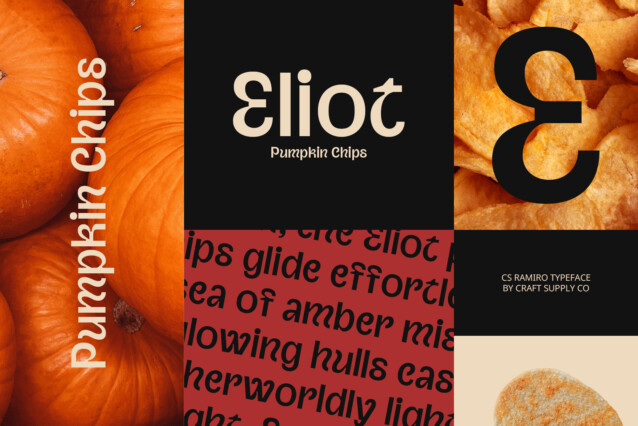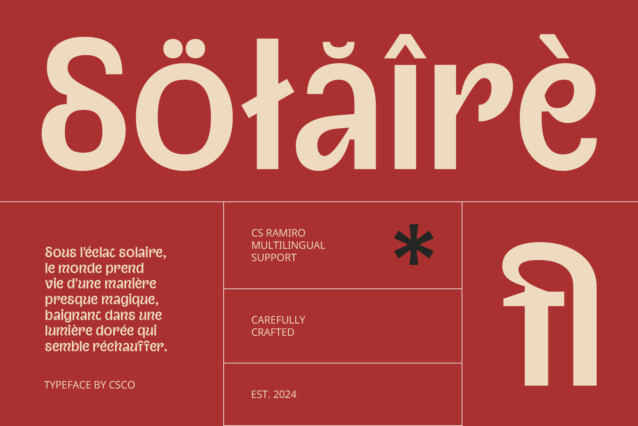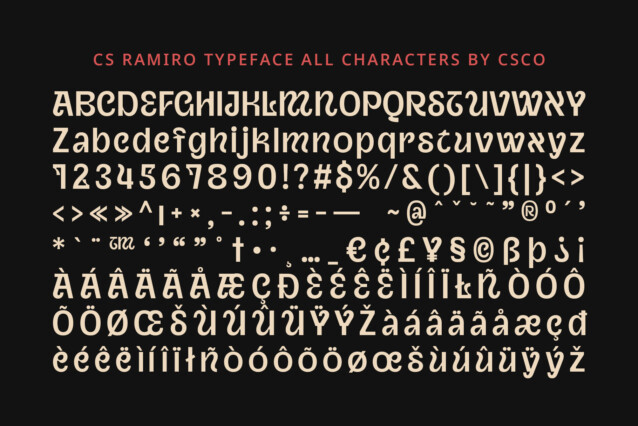
CS Ramiro Font
CS Ramiro Font is a display sans serif font that draws its inspiration from the timeless elegance of the Renaissance era. Featuring bold, thick letterforms paired with classic proportions, the design blends historical sophistication with modern strength. This unique combination results in a striking visual that bridges the gap between vintage charm and contemporary boldness, making it a versatile choice for a wide range of creative projects.